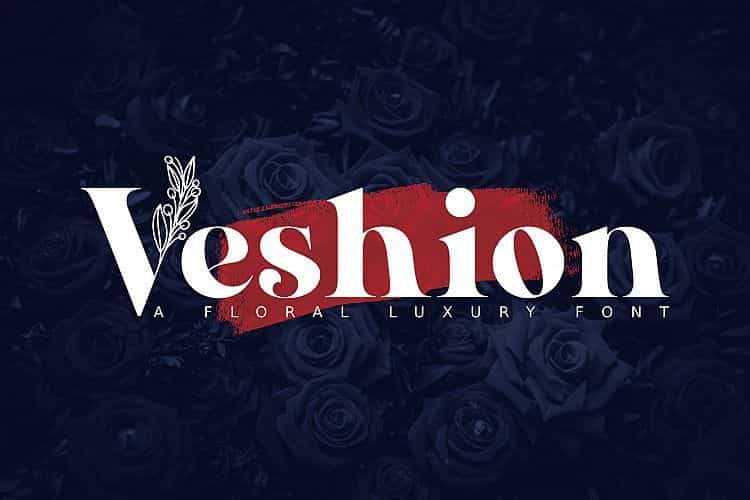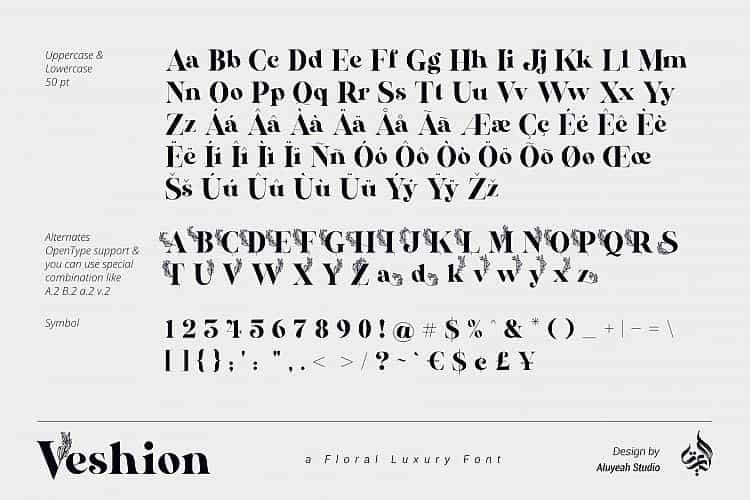
Veshion is a luxury serif font with a strong personality designed for short texts. Veshion Serif is a calligraphy and floral luxury font. It is stylish, graceful, ornamental font. Floral ornament letters are perfect for your wedding monograms and logos, fashion product, herb, back to nature spirit, organic spirit, etc.